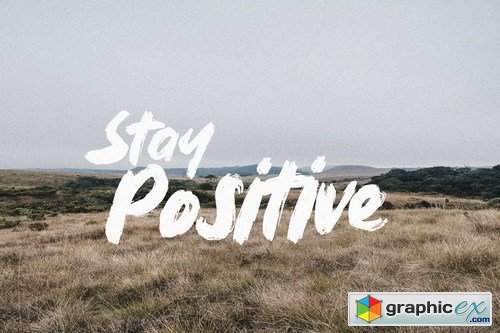
Lothium - Handwritten Brush Font
Lothium is a handwritten brush font. Work great for any design needs: logo, branding, modern advertising design, logos, poster quote, book/cover Title, editorial design, website/blog, card, custom mug, pillow, t-shirts, and any hand-lettered needs.